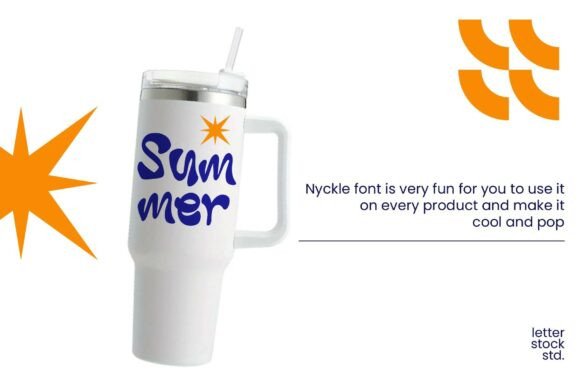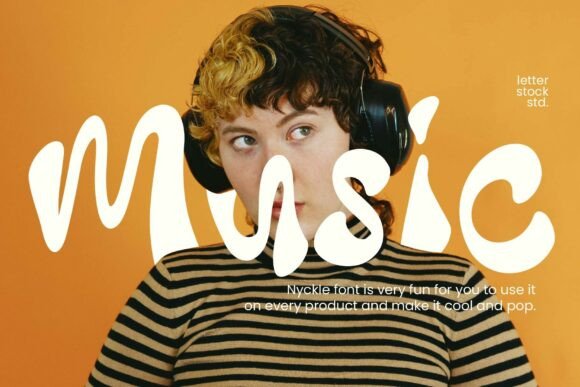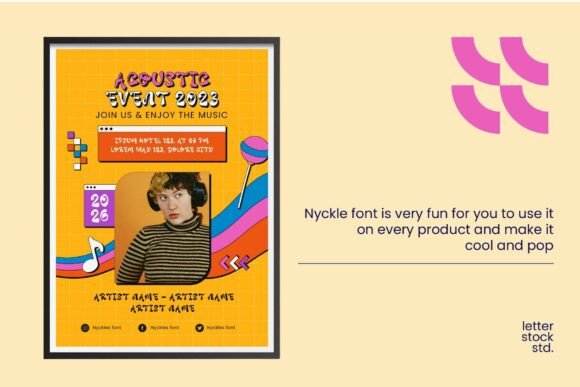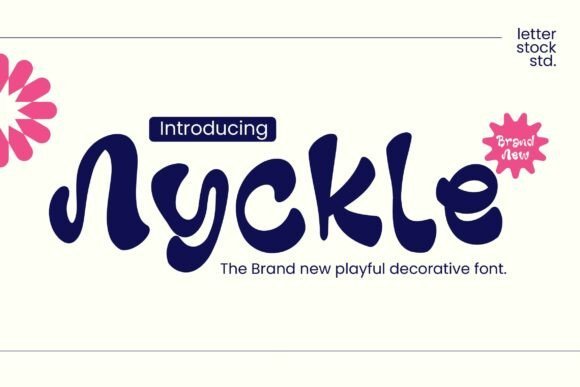
Introduction to Nyckle Font
Nyckle – Playful Decorative Font Nyckle is a playful decorative font designed to bring joy, personality, and charm into your creative projects.
With its unique shapes, quirky curves, and cheerful character, Nyckle instantly adds a fun and friendly vibe to any design This font is perfect for designers who want to create eye-catching visuals that feel lively, expressive, and full of personality.
Nyckle Font offers exceptional quality and versatility, making it a valuable addition to your design toolkit. Whether you’re creating for personal projects or commercial use, Nyckle Font delivers professional results.